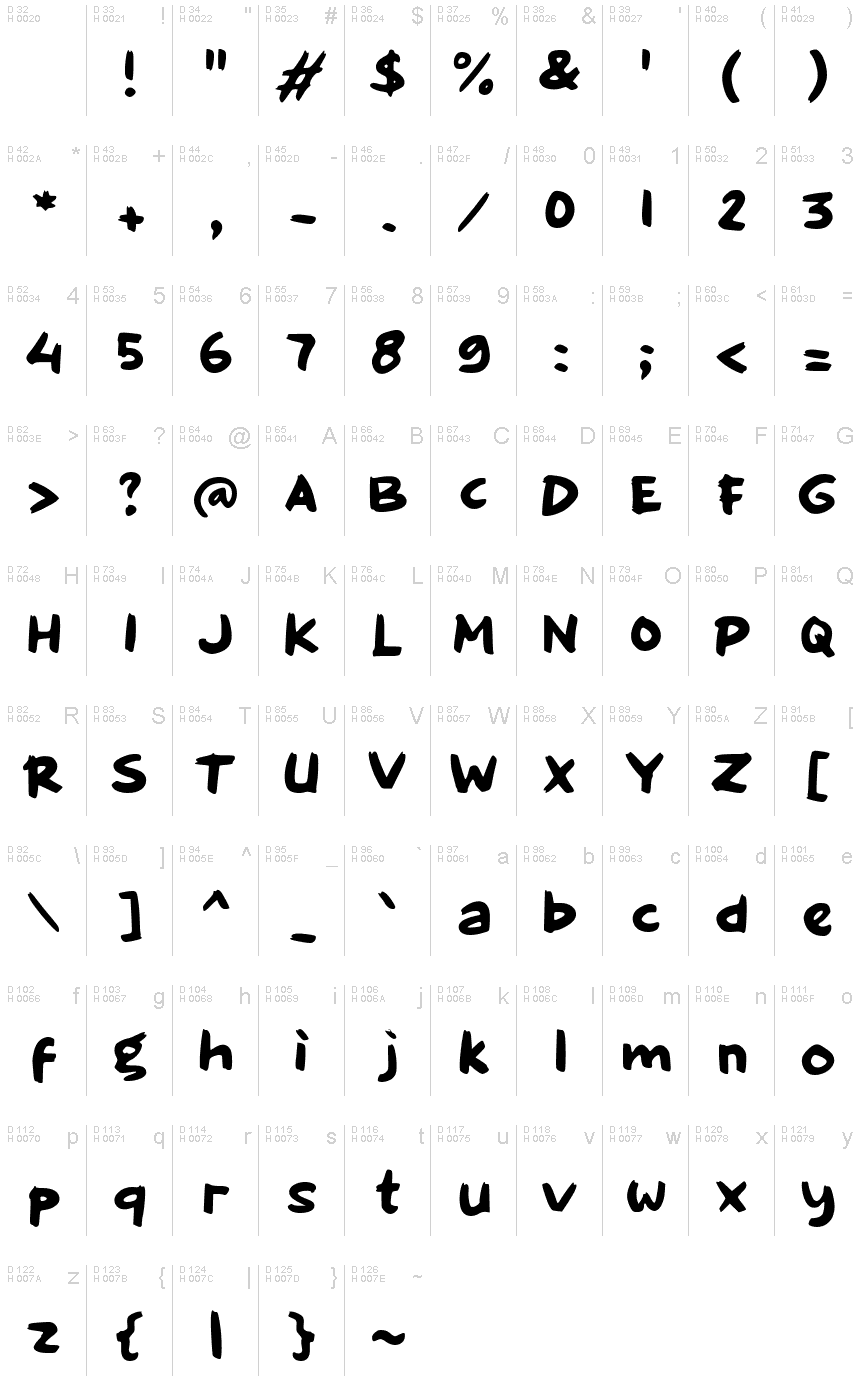
Folking
Folking, designed by wep, is a bold brush font that exudes confidence and creativity. Its expressive strokes and handcrafted feel make it an ideal choice for projects that require a bold statement or a touch of artistic flair.
Use Folking to add personality to your branding materials, such as logos, packaging, and posters. Its versatility also makes it suitable for eye-catching headlines in magazines or websites.
With Folking's bold brush style, your designs will stand out from the crowd and leave a lasting impression on viewers.
Folking
Use Folking to add personality to your branding materials, such as logos, packaging, and posters. Its versatility also makes it suitable for eye-catching headlines in magazines or websites.
With Folking's bold brush style, your designs will stand out from the crowd and leave a lasting impression on viewers.
Folking